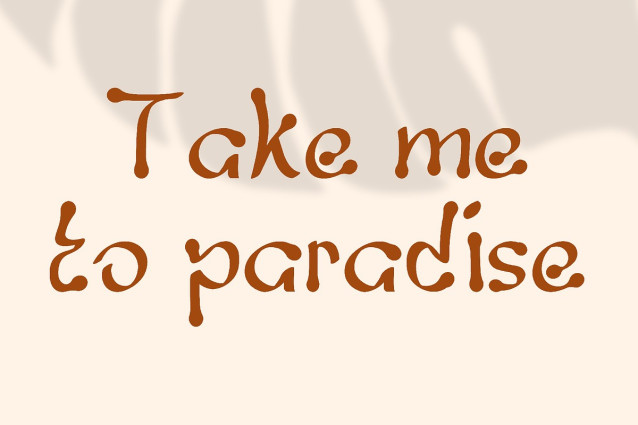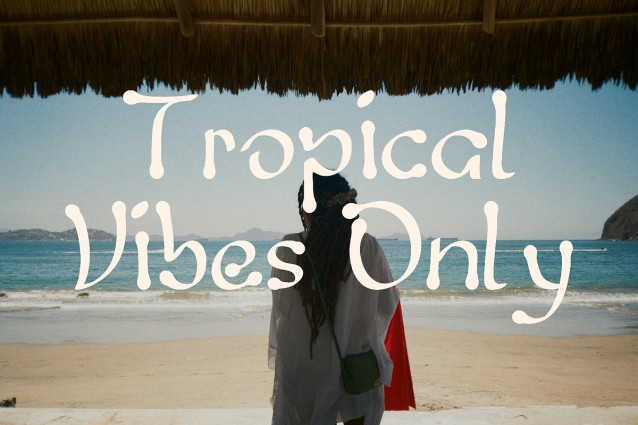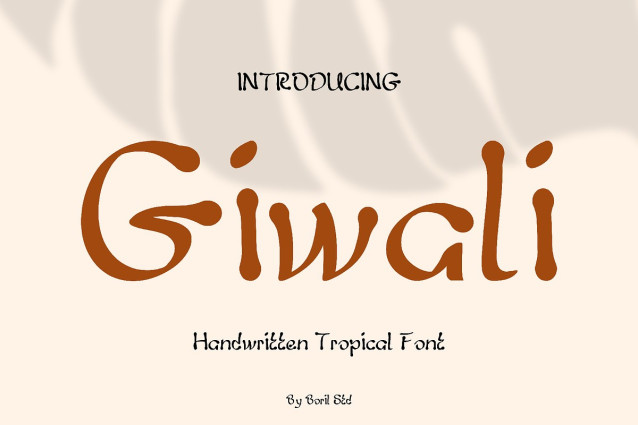
Giwali Font
Giwali Font is a casual handwritten font with natural, asymmetrical, and unique letterforms. The lines are hand-drawn, creating a natural, friendly, and relaxed feel. The edges are slightly curved, reminiscent of delicate brush strokes or chalk strokes, creating a warm and playful tropical feel.